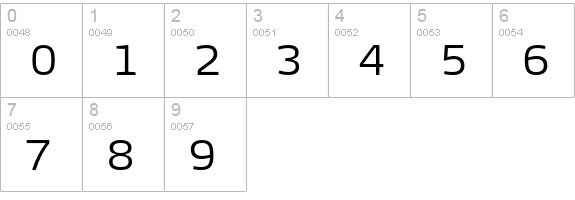
MaxTF-Light is a refined, elegant variant in the MaxTF typeface family \xE2\x80\x94 well suited to elegant body text, refined sub-headings, and luxury branding.
MaxTF-Light is a sleek and modern typeface that exudes elegance and sophistication. With its clean lines and subtle curves, this font is perfect for adding a touch of class to any design project. The light weight of MaxTF-Light gives it a delicate and airy feel, making it ideal for use in headings, quotes, and other display text. What's even better is that MaxTF-Light is available for free download at FontsMarket.com. This means you can easily access this stylish font and incorporate it into your designs without any cost. Whether you're working on a website, branding materials, or print projects, MaxTF-Light is sure to elevate your work with its timeless appeal. Add a touch of refinement to your designs with MaxTF-Light today!